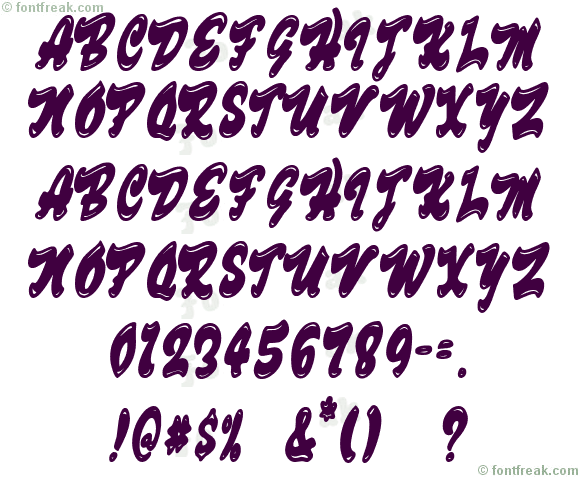
Fine NYC Shop
The Fine NYC Shop font by woodcutter Manero is a captivating display typeface that infuses a unique blend of charm and personality into any design project. This font features a decorative style, characterized by its playful curves and whimsical strokes. The stroke weight varies, giving it a dynamic visual appeal, while the overall contrast adds depth and interest. The spacing between the letters is thoughtfully designed to maintain readability while allowing each character to stand out, making it ideal for eye-catching applications.
Fine NYC Shop is perfect for a variety of creative uses. Its distinctive flair makes it an excellent choice for wedding invitations, where a touch of elegance is desired. Additionally, it can enhance the visual appeal of restaurant menus, providing a trendy yet sophisticated look that captures the essence of culinary creativity. Movie posters benefit from its bold presence, making titles pop and drawing attention to key visual elements. Furthermore, small business branding can leverage this font to create memorable logos and promotional materials that resonate with customers, establishing a unique identity.
Targeted towards graphic designers, small business owners, and content creators, the Fine NYC Shop font offers versatility and character. It's an essential addition to any designer's toolkit, especially for those looking to infuse personality and flair into their projects.